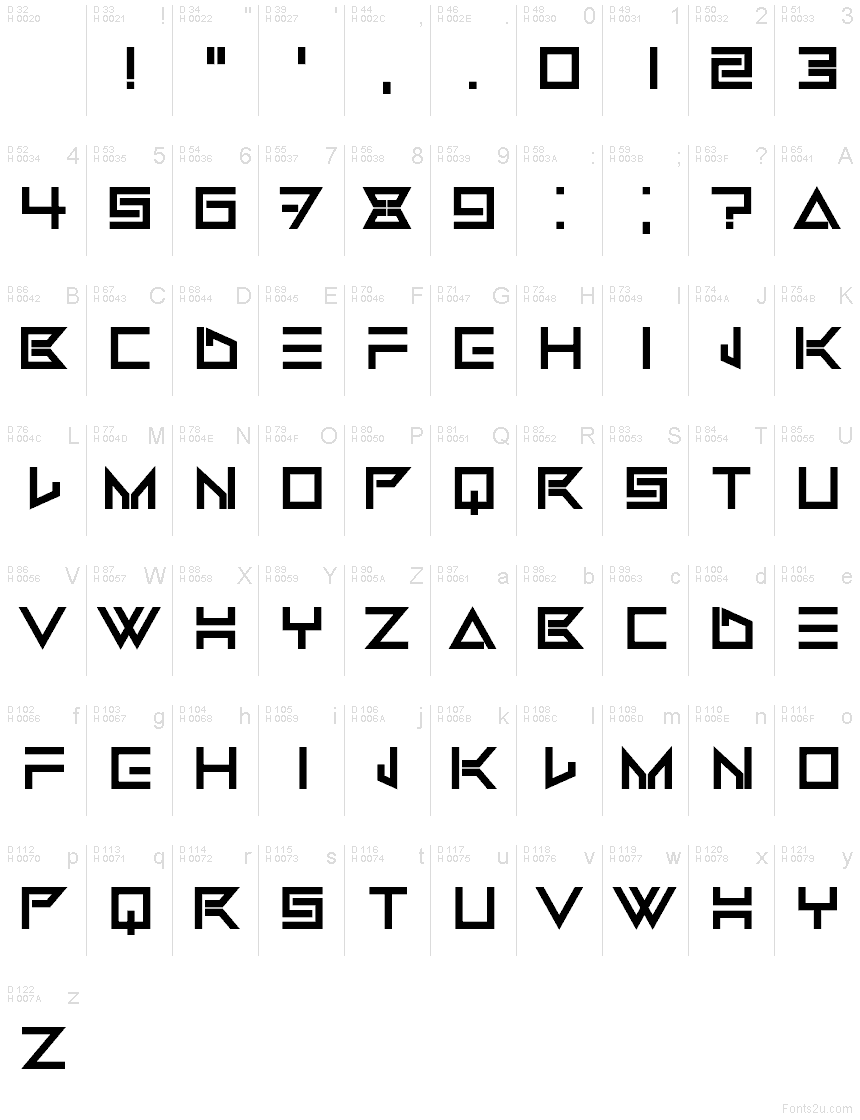
Tangane Regular
Tangane font by Vladimir Nikolic is an expanded techno display font inspired by futuristic technology, centered around a geometric appearance with very sharp angles. Its minimalist design and modernist influence communicate a technical feel ideal for headlines.
Use Tangane in typography-based posters, magazine pages, t-shirt designs, branding projects, marketing material packaging designs, book covers, journal covers game interfaces, etc.